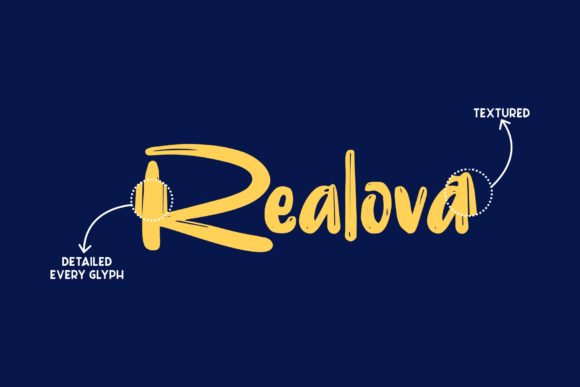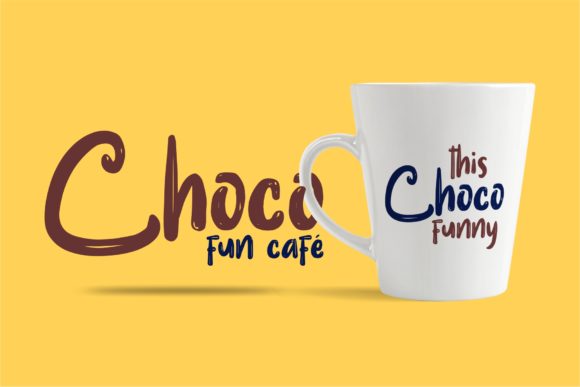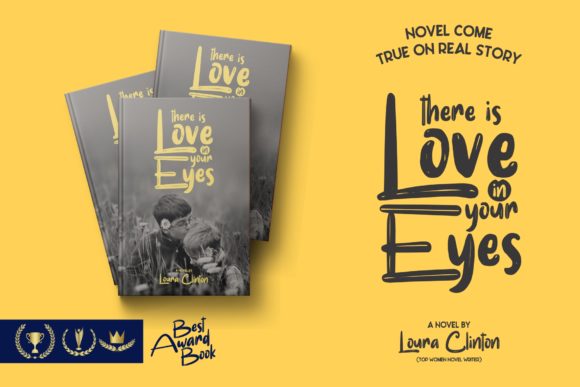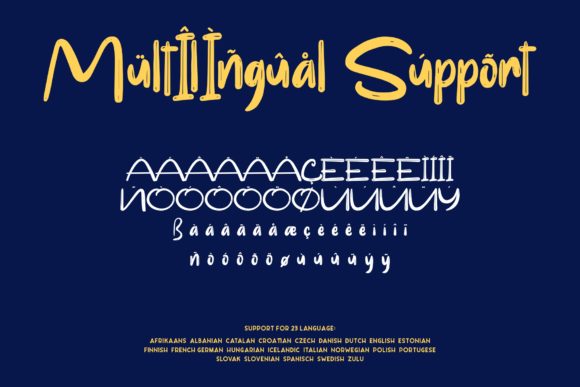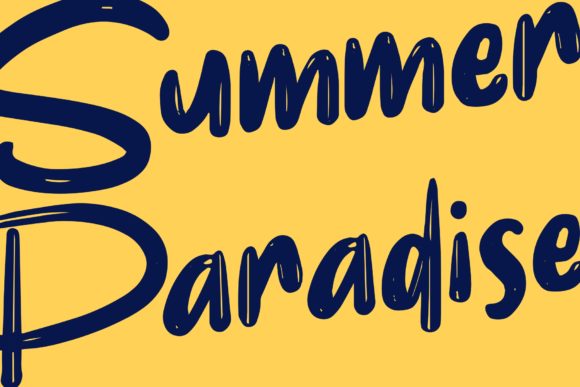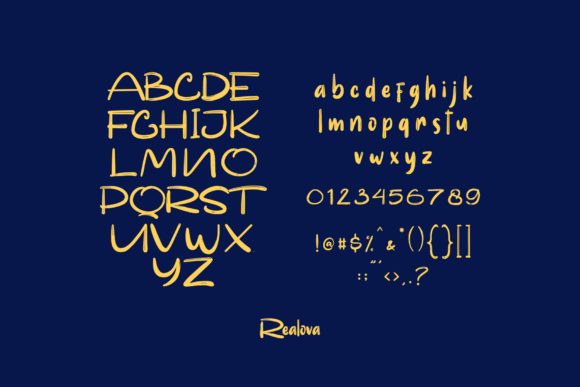
Introduction to Realova Font
Do you remember that moment when you finally find the perfect font to elevate your design project? For many designers, it’s a moment of pure excitement and relief. The search for the ideal font can be a long and arduous process, but it’s a crucial step in bringing your creative vision to life. That’s where the Realova Font comes in – a stunning display typeface that’s sure to make your designs stand out from the crowd.
With its bold and striking style, complete with a touch of brush effect, the Realova Font is the perfect addition to any design project. Whether you’re working on a book title, a typography design, or a poster, this font is sure to add a level of sophistication and elegance that’s hard to find elsewhere. And the best part? It’s available for free download, making it a valuable resource for designers of all levels.
- Unique, modern design that stands out in creative projects and designs.
Honest Review: Realova Font
As a designer, I’m always on the lookout for high-quality design resources that can elevate my creative projects. The Realova Font caught my eye with its sleek and modern design, and I was eager to put it to the test.
What works well with the Realova Font is its versatility. It’s perfect for use in digital design, such as app interfaces, website headers, and social media graphics. The font also has a transparent background, making it easy to layer and blend with other design elements. Additionally, the free download option makes it an attractive choice for designers on a budget.
The Realova Font is a great addition to any design toolbox. Its clean lines and sophisticated feel make it perfect for high-end branding and marketing materials.
Overall, I’m impressed with the Realova Font and would recommend it to any designer looking for a high-quality design resource. While it may not be suitable for every project, its versatility and free download option make it a great choice for many creative endeavors.
Tips for Getting the Most Out of Realova Font
For the best results, use the Realova Font in conjunction with a transparent background to create a high-quality design. You can also experiment with different font sizes and styles to achieve a unique look for your creative project. Consider pairing the Realova Font with other design resources, such as graphics and images, to add depth and interest to your design.
The Realova Font is a versatile design resource that can be used in a variety of creative projects, including branding, marketing materials, and digital art. It’s also available for free download, making it an ideal choice for designers working on a budget. With its high-quality design and transparent background, the Realova Font is a valuable addition to any design library.